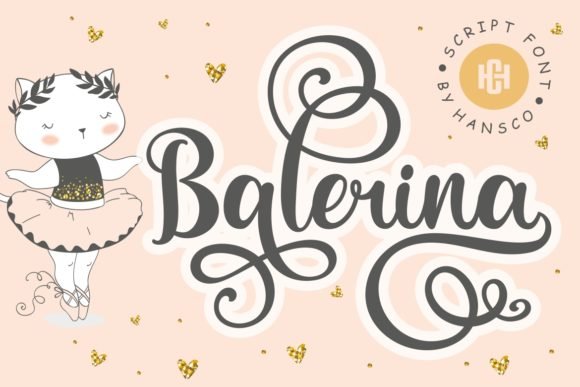
The Perfect Brushstroke: Unveiling the Balerina Font
As a designer, there’s nothing quite like the thrill of creating something beautiful from scratch. It’s the moment when all the pieces come together, and you know you’ve crafted something truly special. For me, it was the day I discovered the Balerina Font – a stunning, elegant handwritten font that has become an instant favorite among designers.
Handcrafted with love and care, the Balerina Font is a versatile and stylish font that can be used for a wide range of purposes, from logos and wedding invitations to headings and signage. Its unique character makes it a valuable addition to any designer’s toolkit, offering endless possibilities for creative expression.
With its PUA encoding, accessing all the glyphs and swashes is a breeze, making it an absolute must-have for any designer looking to add a touch of elegance to their work. Whether you’re working on a high-end branding project or a fun, casual design, the Balerina Font is sure to deliver.
Balerina Font Key Features
- Font Style: Elegant script font with a touch of whimsy, ideal for creative and artistic designs.
- Unique Characteristics: Features a flowing, cursive design with subtle flourishes and swashes, perfect for adding a touch of personality to your designs.
- Character Set: Includes a comprehensive set of characters, including uppercase and lowercase letters, numbers, and punctuation marks, as well as a range of ligatures and ornaments.
Balerina Font Review
As a designer, I was excited to try out the Balerina font. Here’s my honest review:
- The Balerina font has a unique and elegant aesthetic that’s perfect for fashion, beauty, and lifestyle brands.
- The font is highly legible, even at small sizes, making it ideal for body text and captions.
- The font’s script-like feel adds a touch of sophistication and whimsy to any design project.
- The Balerina font may be too ornate for some projects, particularly those that require a clean and minimalist look.
- The font’s script-like feel may not be suitable for projects that require a strong, bold, or sans-serif aesthetic.
- The font’s ligatures and swashes may not be supported in all operating systems or devices.
Overall, the Balerina font is a beautiful and elegant choice for designers looking to add a touch of sophistication to their projects. While it may not be suitable for every project, it’s a great option for fashion, beauty, and lifestyle brands looking to stand out. With a little caution and attention to detail, the Balerina font can be a great addition to any designer’s toolkit.
Tips for Getting the Most Out of the Ballerina Font
To get the most out of the Ballerina font, use it sparingly to add emphasis to key text elements. Pair it with a clean sans-serif font to create a beautiful contrast. Experiment with different font sizes and styles to add visual interest to your design.
The Ballerina font is perfect for:
- Brand logos and typography
- Editorials and literary publications
- Event invitations and announcements
Alternatives to Balerina Font for Designers
Great Vibes is a modern, elegant script font perfect for creating a luxurious and sophisticated look. It is ideal for use in branding, packaging, and advertising where a high-end feel is desired. Compared to Balerina Font, Great Vibes is more cursive and has a softer, more refined appearance.
Carolyna Pro is a versatile, modern script font suitable for a wide range of design applications, from branding and packaging to digital products and websites. It is a good alternative to Balerina Font for designers who want a more contemporary look without sacrificing elegance. Carolyna Pro has a similar level of sophistication but with a more streamlined and modern feel.